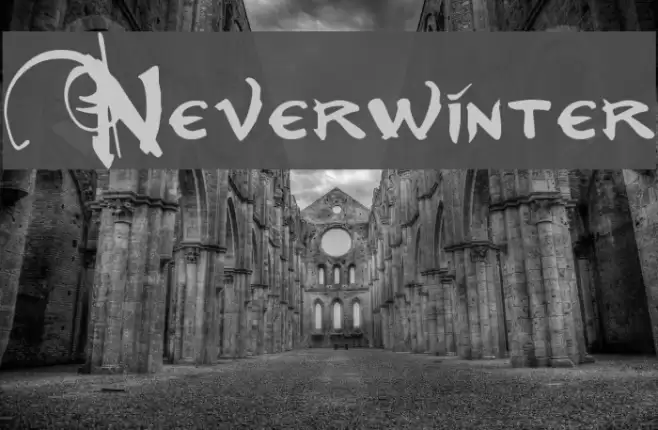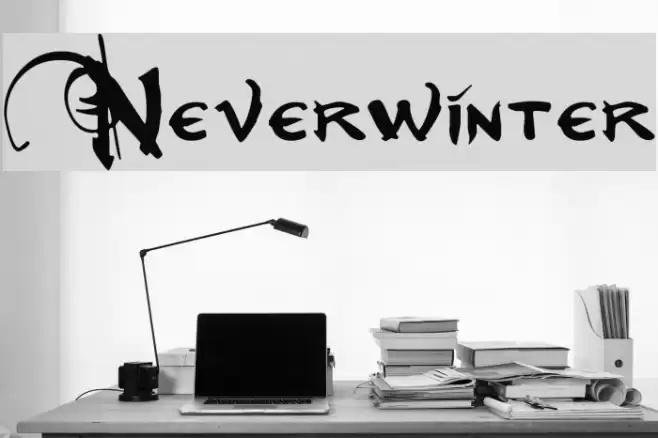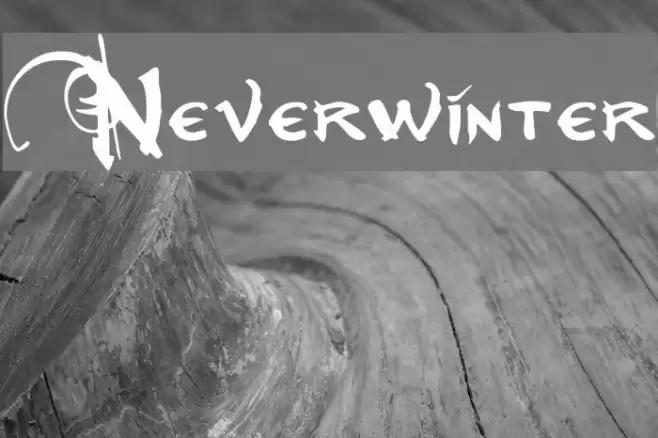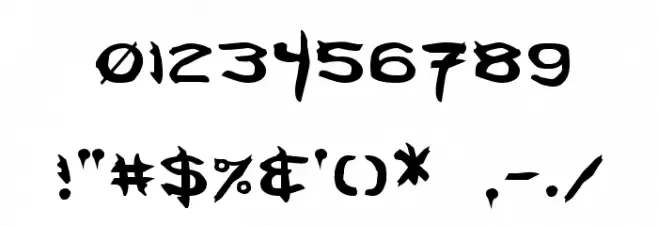
Neverwinter Font
Neverwinter Description
This font features a unique blend of gothic and modern elements, characterized by its sharp, angular strokes and intricate detailing. The uppercase letters are bold and commanding, with a distinct medieval flair that is both decorative and striking. The lowercase letters maintain the same stylistic elements, offering a cohesive look across the alphabet. Numbers and special characters are crafted with the same attention to detail, ensuring consistency throughout. The font's overall appearance is dramatic and eye-catching, making it suitable for projects that require a strong visual impact.
A bold, gothic-inspired font with sharp, angular strokes and intricate detailing from Uncategorized fonts.
- Proposed Projects: Ideal for fantasy-themed designs, video game titles, book covers, and posters.
- Overall Style: Gothic, Modern